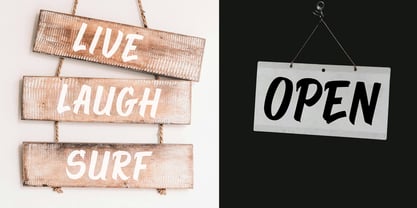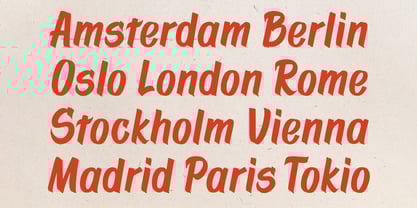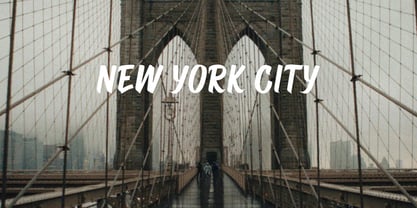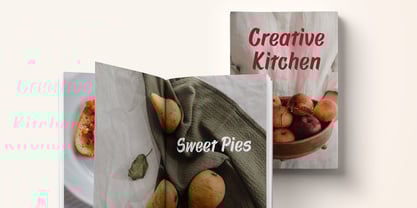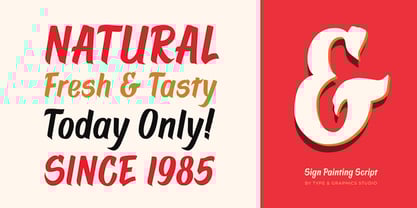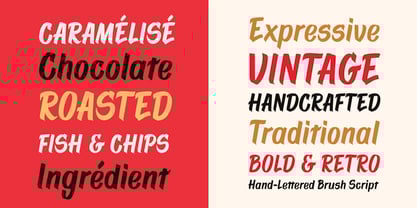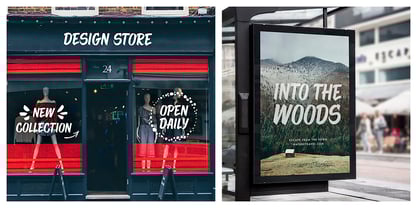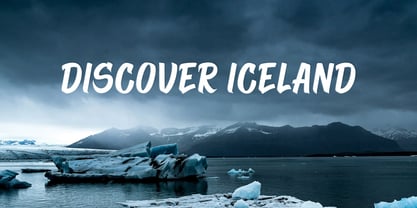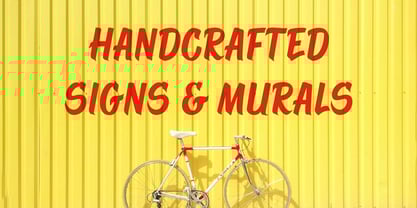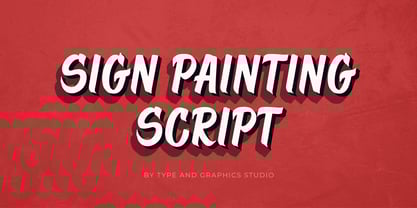
Sign Painting Script
Die Schriftfamilie Sign Painting Script wurde von Svetlana Postikova entworfen und von Type and Graphics Studio veröffentlicht. Sign Painting Script enthält 1 Stile.
The inspiration for the Sign Painting Script came from traditional signage and sign painting in the United States. This font captures the essence of classic American sign art, blending it with modern design sensibilities. It includes capital and lowercase characters, punctuation, numerals, symbols, ligatures, and international characters for most European languages. As a display typeface, Sign Painting Script is ideal for logotypes, signs, posters, product designs, print and digital ads, branding, and much more.